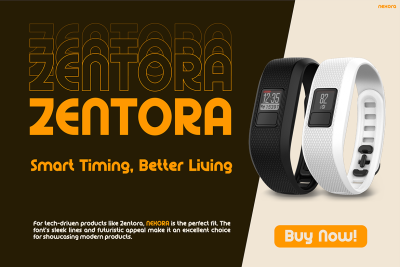
Futuristic Font NEXORA
NEXORA
Futuristic Font NEXORA is a sleek, modern typeface designed for cutting-edge brands and creative projects. Inspired by futuristic technology, digital interfaces, and innovative architecture, NEXORA embodies a forward-thinking aesthetic. Moreover, its bold, geometric letterforms and smooth curves create a perfect balance of modern sophistication and minimalism. Whether for branding, posters, UI/UX design, or sci-fi visuals, NEXORA stands out.
The font’s clean design ensures readability while maintaining impact. Additionally, its subtle rounded edges soften the futuristic look, making it versatile for corporate and artistic applications. NEXORA thrives in high-tech environments, gaming interfaces, and digital advertising. Furthermore, the proportional letterforms ensure smooth reading, making it ideal for headlines and body text.
If you’re looking for a font that embodies innovation, modernity, and sleek sophistication, NEXORA is the ultimate choice. It bridges contemporary aesthetics with a futuristic vision, making it perfect for brands that want to stand out in the digital landscape.
Who Should Use Futuristic Font NEXORA?
Futuristic Font NEXORA is ideal for designers, tech brands, and creatives needing a high-impact typeface. More specifically, it works best for:
1. Tech Startups & Corporate Branding – The futuristic yet professional design makes NEXORA ideal for innovative companies, IT firms, and high-tech brands seeking a sleek identity.
2. Gaming & Esports Graphics – With its bold aesthetic, NEXORA integrates seamlessly into gaming logos, esports branding, and promotional materials for tech events.
3. UI/UX and Web Designers – The geometric structure enhances readability on digital interfaces, websites, and mobile apps, creating a smooth user experience.
4. Sci-Fi & Futuristic Media – Perfect for book covers, movie posters, or futuristic marketing materials, NEXORA delivers a striking, modern appeal.
5. Corporate Presentations & Digital Ads – Modern businesses seeking a strong, innovative font for presentations, advertisements, and campaigns will benefit from NEXORA.
6. Architectural & Industrial Design – With its precision and balance, NEXORA complements branding for architecture, urban design, and futuristic infrastructure.
Futuristic Font NEXORA is more than just a typeface—it’s a statement of modernity and progress. Whether for branding, advertising, or digital content, this font captures a sleek, dynamic future, making it essential for forward-thinking designers and brands.
Futuristic Font NEXORA is a bold, modern typeface with sleek geometric letterforms. Perfect for branding, UI/UX, gaming, and sci-fi designs, it ensures high impact and readability.